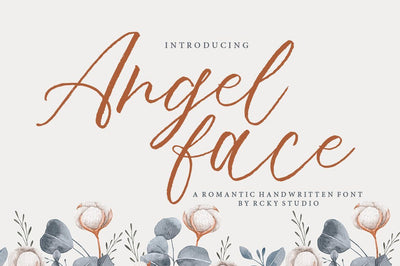
Angel Face
Angel Face is a romantic handwritten font with contemporary, sophisticated accents. Suitable for use in watercolor designs. Such as Novel tittle, Apparel, Invitations, Quotes, Books tittle, Stationery Design, Branding, Logos, Greeting Card, T-shirt, Packaging design, Poster and more.
Angel Face Font includes a complete set of uppercase and lowercase letters, as well as multi-language support, numbers, punctuation, ligatures and alternative character,also with additional Angel Face extra swashes.